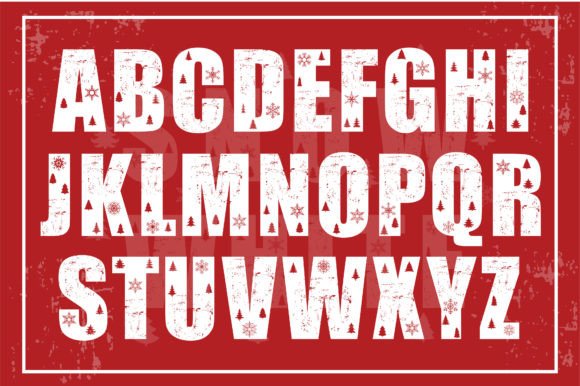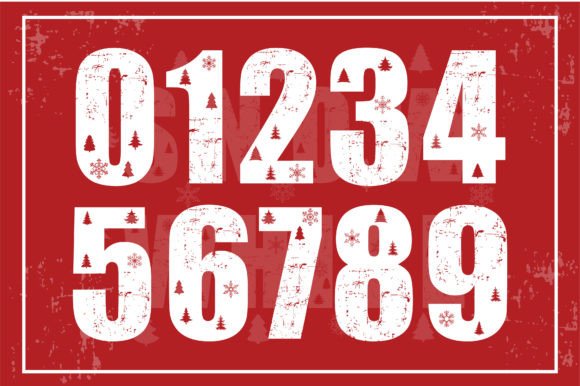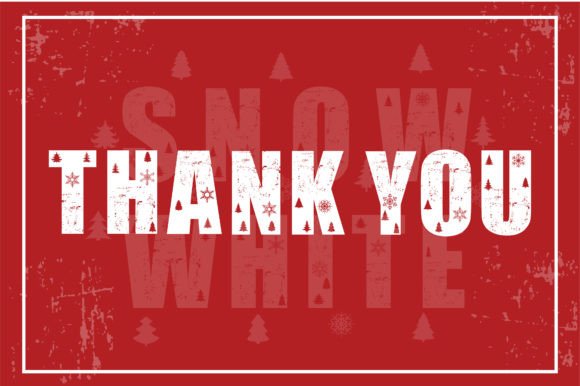
Introduction to Snow White Font
As the snowflakes gently fall outside, there’s something magical about curling up by the fireplace with a warm cup of hot cocoa and a creative project. For many designers, this is the perfect moment to bring their winter wonderland visions to life. Whether it’s a festive holiday card or a whimsical Christmas market design, the right font can make all the difference.
Enter the enchanting Snow White Font, a thick-lettered and festive decorative font that’s sure to captivate your audience. With its authentic look, this design resource adds a personal and realistic feel to any project. Whether you’re working on a high-quality design or a free download, Snow White Font is the perfect companion for your winter-themed creations.
Key Features of Snow White Font
- Unique and elegant design perfect for various creative projects, including graphic design, digital art, and more.
- High-quality font with transparent background, ideal for use with images or videos that require a seamless integration.
- Includes a wide range of characters, including uppercase and lowercase letters, numbers, and special symbols, ensuring comprehensive support for various design needs.
Honest Review: Snow White Font
As a designer, I’m always on the lookout for high-quality fonts to enhance my creative projects. Recently, I stumbled upon the Snow White Font, and I was curious to see if it lived up to its promise.
What works well is the font’s elegant and classic feel, making it perfect for projects that require a touch of sophistication. The Snow White Font is a great addition to any design resource, and it’s completely free to download!
- ✨ Elegant and classic feel
- ✨ Suitable for a variety of creative projects
Overall, the Snow White Font is a solid choice for designers looking for a high-quality, elegant font. While it may have some limitations, it’s definitely worth considering for your next creative project.
Tips for Getting the Most Out of Snow White Font
When using the Snow White Font, remember to experiment with different font sizes, colors, and styles to achieve a unique look. You can also use the font in combination with other design elements to create a visually appealing design. Don’t forget to save your design in a high-resolution format to ensure it looks great on any device.
Common Use Cases for Snow White Font
The Snow White Font is perfect for a variety of creative projects, including wedding invitations, baby shower invitations, and holiday cards. It’s also a great choice for designers who want to add a touch of elegance and sophistication to their designs. With its free download and transparent background, the Snow White Font is a valuable design resource for any creative project.